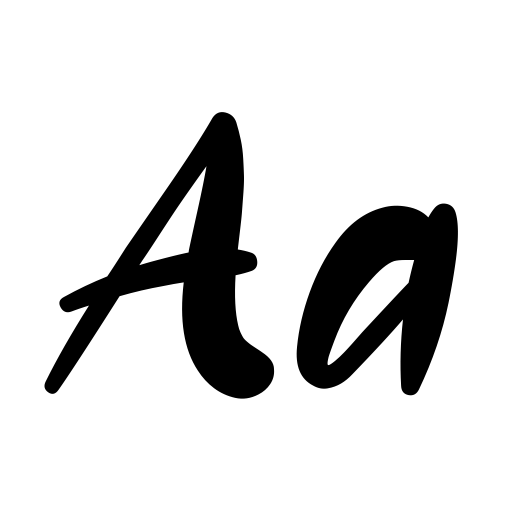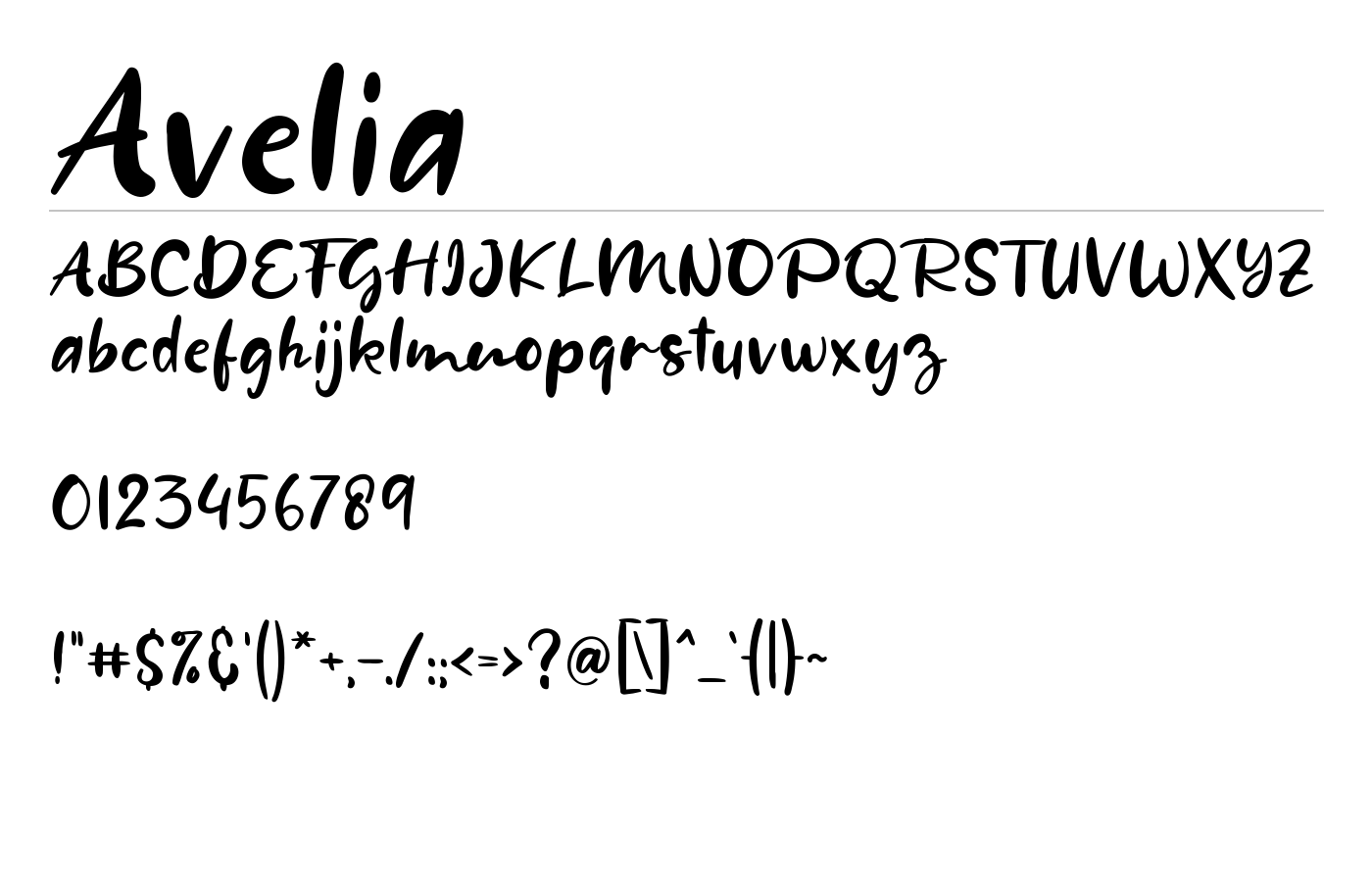
Avelia is a lively handwritten script font with a casual, friendly feel. Its moderately thick strokes and slightly slanted letterforms create an inviting and dynamic appearance, making it perfect for creative projects, informal branding, and playful headlines. This font works well where a personal, approachable touch is needed, such as invitations, personal blogs, and social media graphics.
Avelia Font
About Avelia Font
| Font family | Avelia Font |
| Designer | Sahirul Sugih |